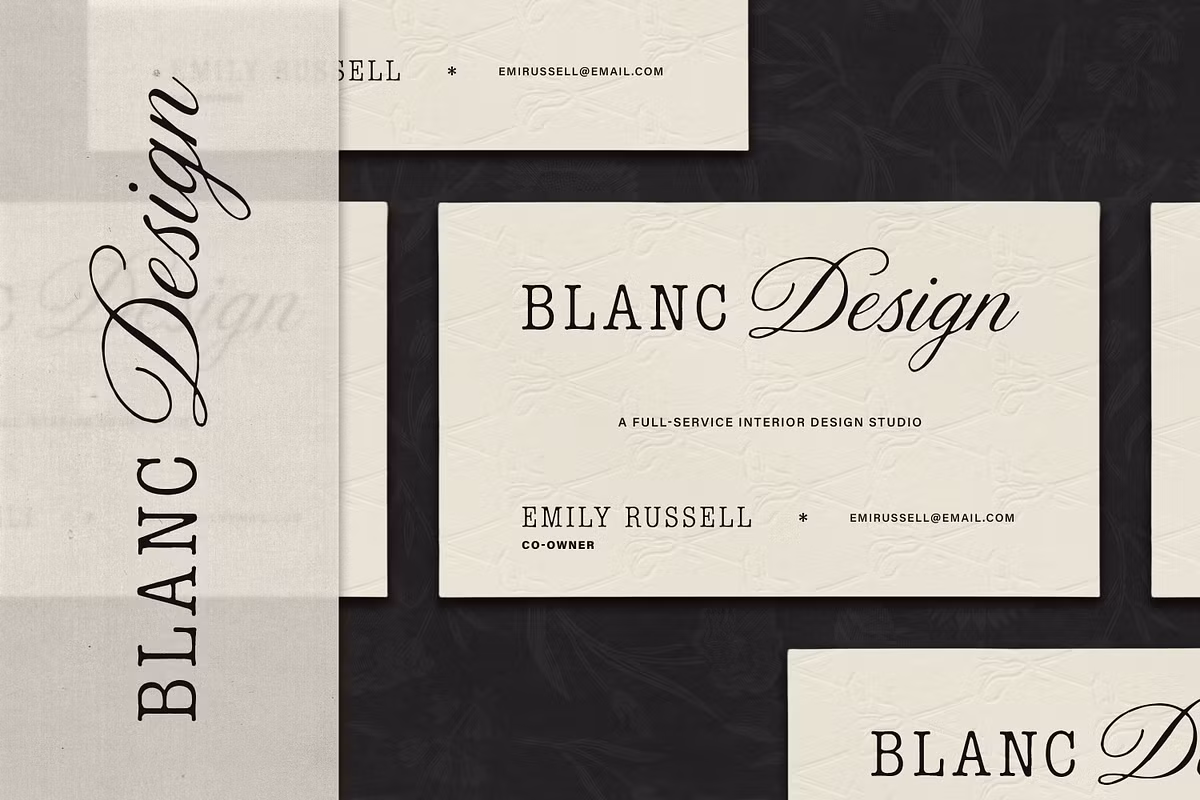
Introduction to Details Font Duo
The Details font duo is really something special – it’s all about mixing things up and making them work together in a beautiful way. You’ve got a script font that looks like it was drawn by hand, all flowing and nice, and then you’ve got a serif font that’s soft and slab-like. When you put them together, it’s like they were meant to be – it’s classy, but not too fancy, so it feels like something everyone can relate to. That’s what makes Details so great for designers – it’s good for lots of different projects, like making a brand look fancy or designing wedding invitations that feel friendly and inviting. It’s basically the perfect pair of fonts for anyone who wants to add a bit of elegance to their work without making it feel too posh.
Design Style of Details Font Duo
The Details font duo has a design style that’s all about contrast. It combines a hand-drawn script that adds a personal touch and makes things feel warm and cozy. This script doesn’t just look great, it also comes with custom alternates that let you make your typography one-of-a-kind. The result is a unique and tailored look that feels special. With its natural flow, the script creates a sense of character and flair, making it perfect for adding a personal touch to your designs.
The soft slab serif acts as a stabilizing force when paired with the other font. It has a simple design that makes it easy to read and helps to balance things out, which makes it a great match for the more decorative script. When you put these two styles together, you get a typography duo that looks like it was carefully chosen, and it works well for lots of different uses.
Character Sets and Features
The Details font duo has a lot to offer, with a big set of characters that makes it really useful for all sorts of design projects. The script part is handwritten and has lots of extra connections between letters, called ligatures, and different versions of the same character, which you can use to make your text look more personal and special. This is especially great for things like branding and invitations, where you want to stand out and show your own style.
The slab serif font has a full range of letters, numbers, and punctuation marks, which means your designs will look consistent. By combining these different character sets, designers can create unique and interesting typography that grabs people’s attention and is easy to read at the same time. This versatility allows designers to experiment with different styles and layouts, making their work more engaging and effective.
Use Cases for Details Font Duo
The Details font duo is really versatile, which means it can be used in lots of different ways. Some of the main ways to use it include:
- Creating editorial layouts for magazines and online publications.
- Designing logos and brand materials for strong identities.
- High-End Packaging to enhance perceived product value.
- Wedding and Event Stationery for beautiful invitations.
- Social Media Identities for eye-catching graphics.
When it comes to creating editorial layouts, you want something that looks great and helps get your message across. That’s where a nice mix of script and slab serif fonts comes in – it’s perfect for magazines and online publications that want to make a good impression. This combination is elegant and easy to read, making it ideal for sharing high-quality content in a way that’s visually appealing.